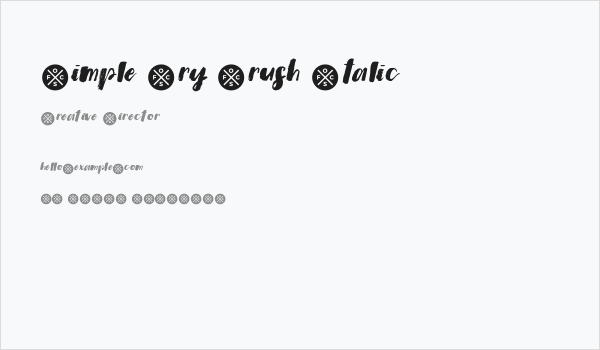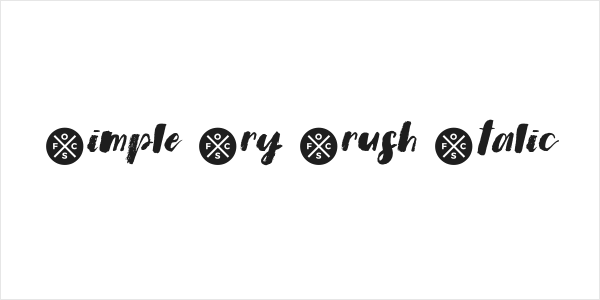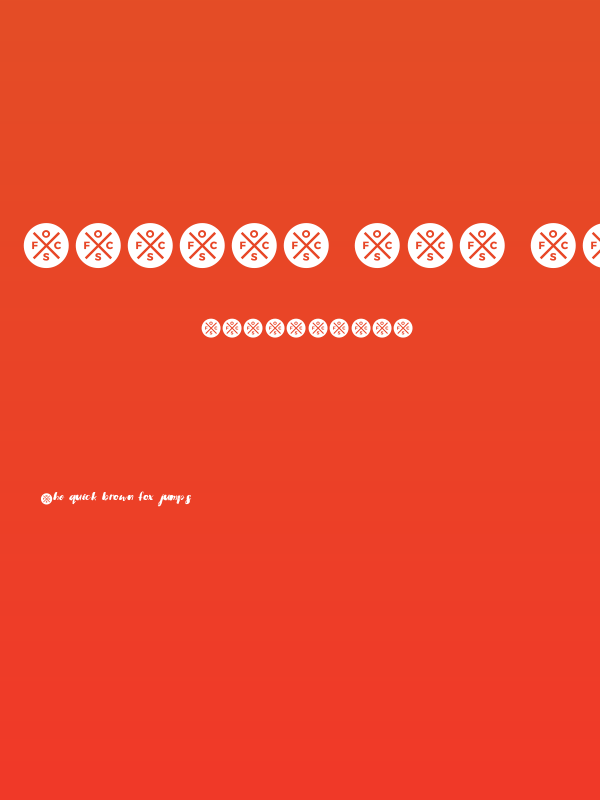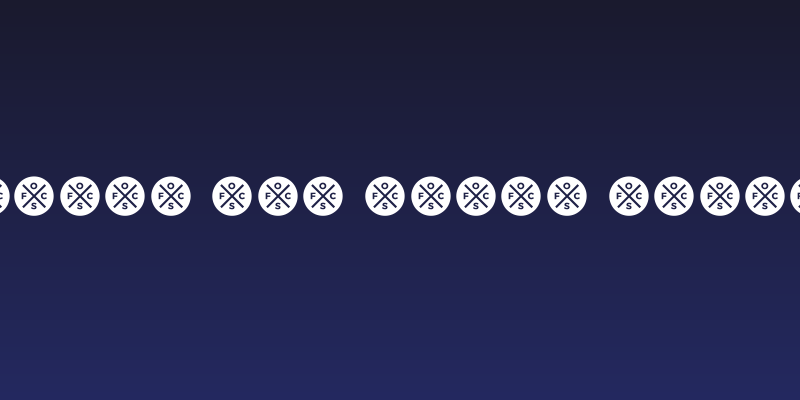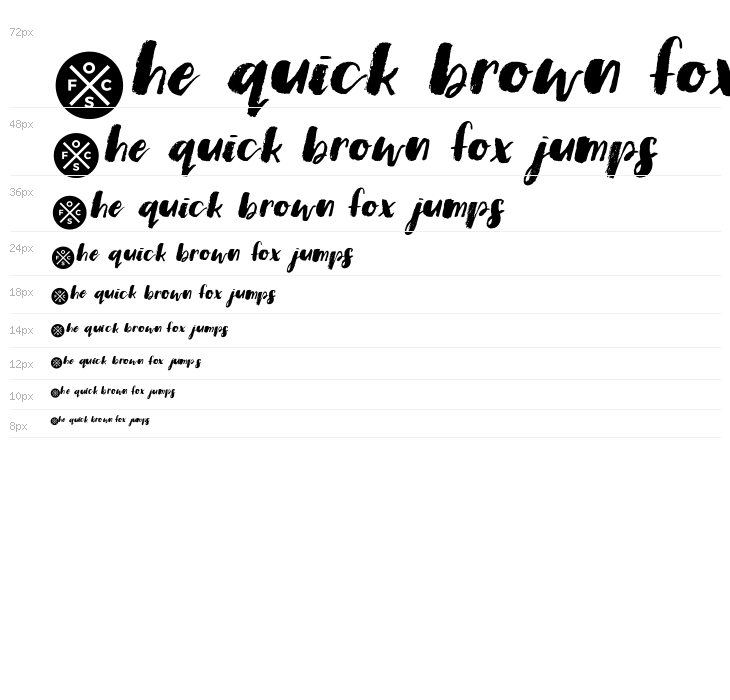
Simple Dry Brush Italic Font
Simple Dry Brush Italic Description
This font features a bold, expressive style that mimics the appearance of dry brush strokes. The letters are slightly italicized, giving them a dynamic and fluid motion. Each character exhibits a unique texture, with varying thickness that adds a handcrafted feel. The brush-like strokes create a sense of movement and energy, making it ideal for artistic and creative projects. The font maintains legibility despite its artistic flair, with clear distinctions between each letter. Its bold presence makes it suitable for attention-grabbing headlines and designs that require a strong visual impact.
| Use Case | Headlines, Logos, Artistic projects |
| Proposed Projects | Ideal for posters, branding, artistic projects, and any design requiring a bold, creative touch. |